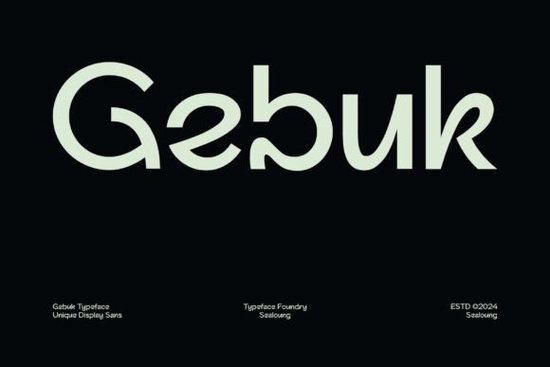
If you're looking for a bold, clean sans-serif font that stands out without sacrificing readability especially for headlines, logos, or product packaging Gebuk Font is worth your attention. It’s not overly decorative or trendy in a fleeting way; instead, it balances strong presence with minimalist structure. That makes it especially useful if you’re designing for print-on-demand products, small business branding, or social media graphics where clarity and impact matter more than ornamentation.
What kind of projects does Gebuk work well for?
Gebuk shines where you need instant visual weight: poster headlines, t-shirt text, logo lockups, Instagram story banners, and even minimalist packaging labels. Its letterforms are solid but not heavy think confident, not aggressive. Because the spacing and proportions are carefully tuned, it holds up well at both large sizes (like a storefront sign) and smaller ones (like a capsule collection tag). It’s also a good pairing font: try it with a lighter, neutral sans-serif for body text something like Gunken Font or Simple Aesthetic Font for contrast without clashing.
How does Gebuk compare to other bold display fonts?
Unlike some ultra-condensed or highly stylized display fonts, Gebuk avoids extremes. It doesn’t rely on sharp angles, exaggerated terminals, or forced quirks to get noticed. Instead, it uses consistent stroke weight, open counters, and generous x-height features that help maintain legibility across formats and devices. If you’ve tried Once After Font and found it a bit too delicate for your needs, or Cyprus Sunrise Duo Font too soft for bold statements, Gebuk sits comfortably in the middle: assertive but grounded.
Is Gebuk suitable for branding and small business use?
Yes especially if your brand values modern simplicity and approachable confidence. Think cafes with clean signage, wellness brands using subtle strength in their voice, or indie makers launching a new line of ceramics or stationery. Since Gebuk includes standard Latin characters and basic punctuation, it works well for English-language branding right out of the box. For multilingual projects, double-check character support before committing but for most US/UK/AU/CA-based sellers and designers, it covers common needs without requiring extra licensing steps.
Where can I see real examples of Gebuk in action?
One practical tip: avoid overusing Gebuk in long paragraphs or UI buttons it’s designed for short, high-impact text. Save it for what it does best: making your main message impossible to scroll past.
- ✅ Use Gebuk for headlines, logos, and product tags not body copy
- ✅ Pair it with a light, neutral sans-serif for balance
- ✅ Check character coverage if you need accented letters or symbols
- ✅ Test how it renders at small sizes on mobile screens before finalizing